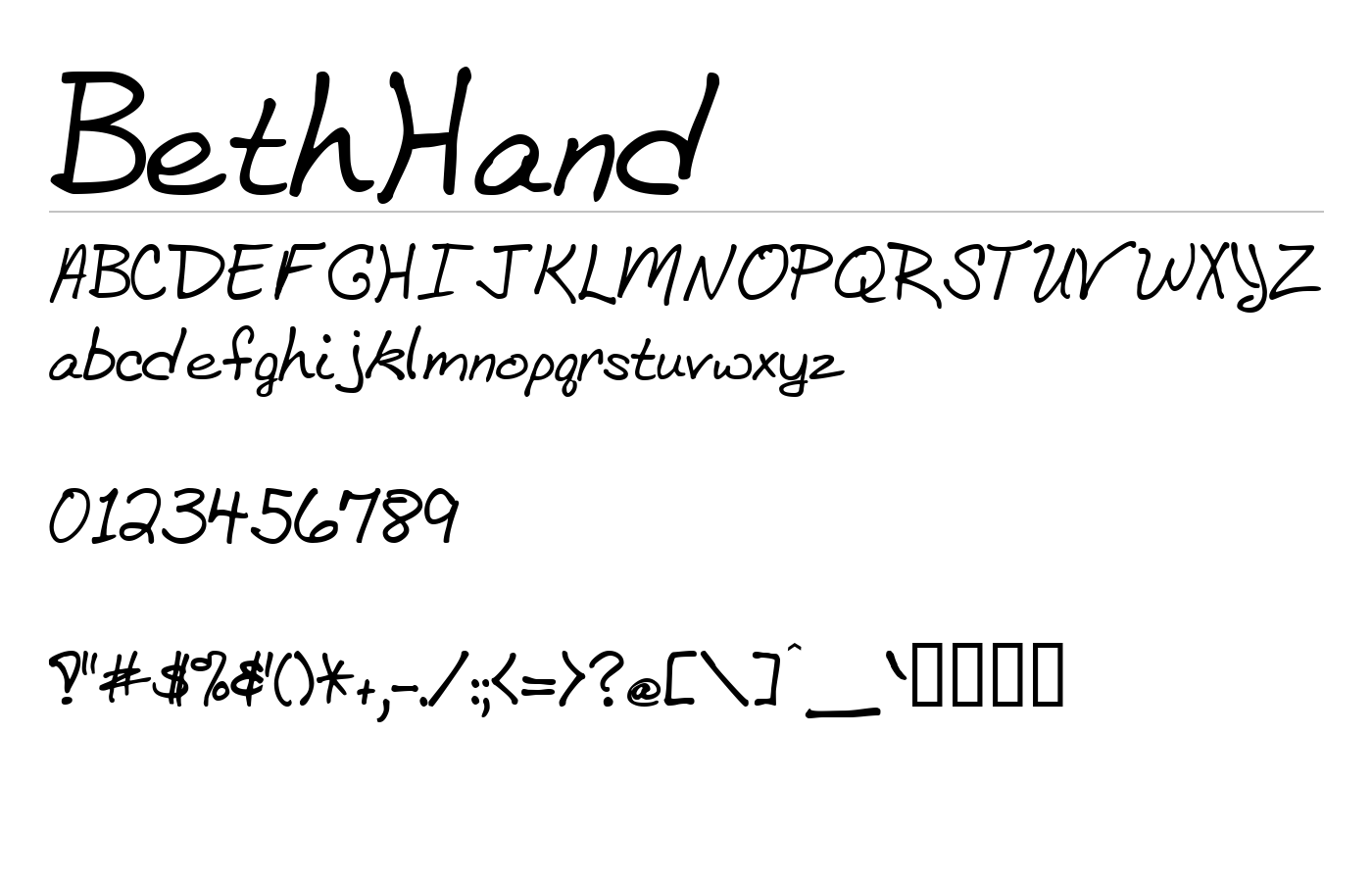
BethHand is a casual, handwritten-style font with a friendly and approachable personality, featuring varied stroke widths and slightly irregular letterforms that mimic natural handwriting. Its slightly condensed, medium-height characters with playful curves make it ideal for informal designs, personal branding, and creative projects where a warm, human touch is desired. This font works well for invitations, greeting cards, social media graphics, and any context where a casual, personal tone enhances the message.
BethHand Font